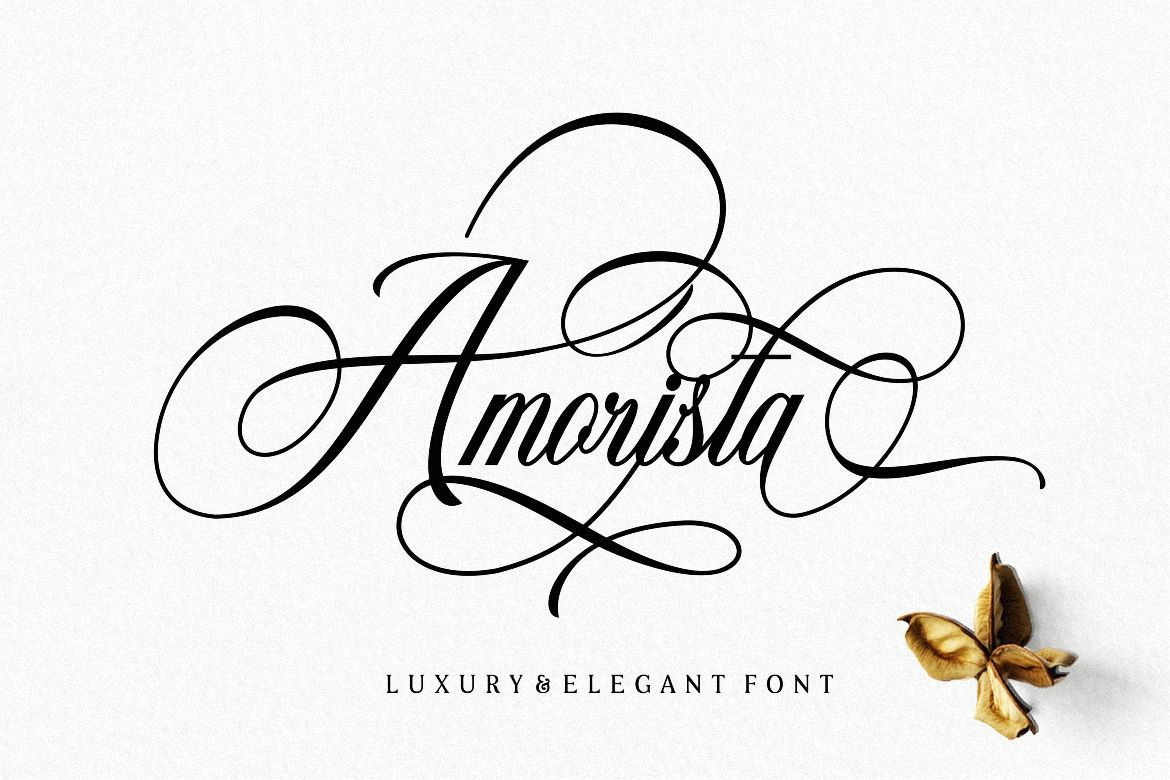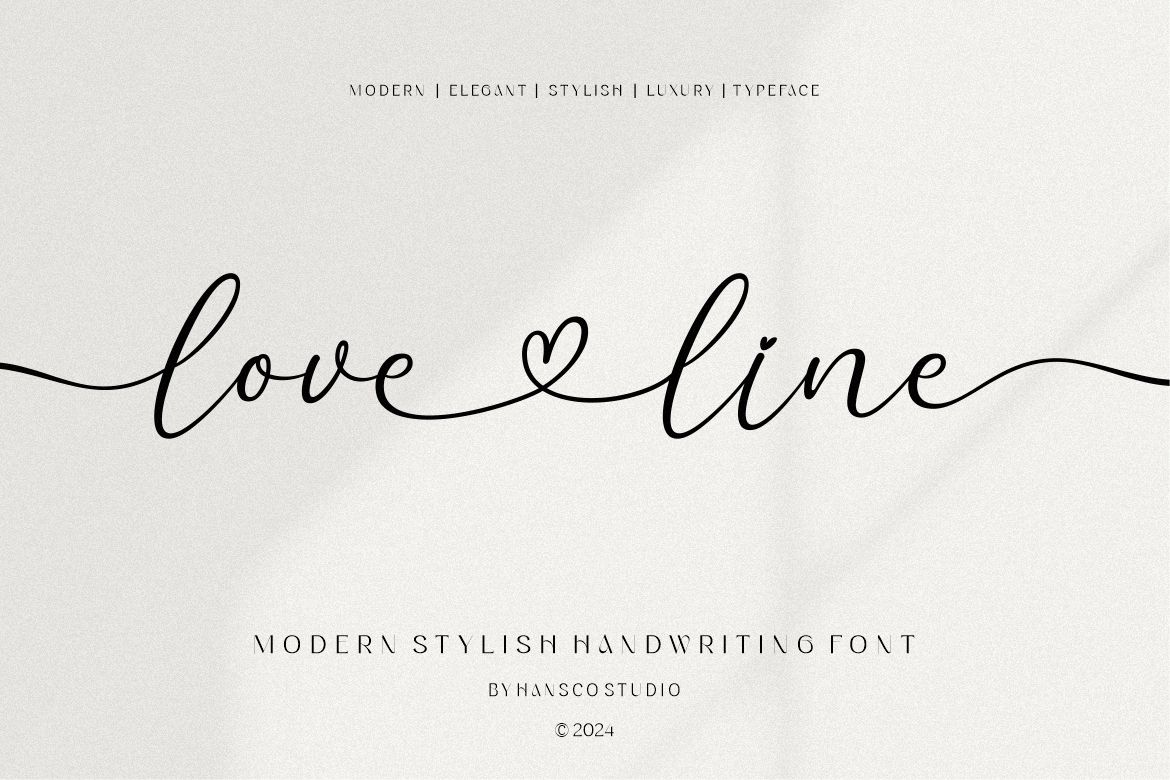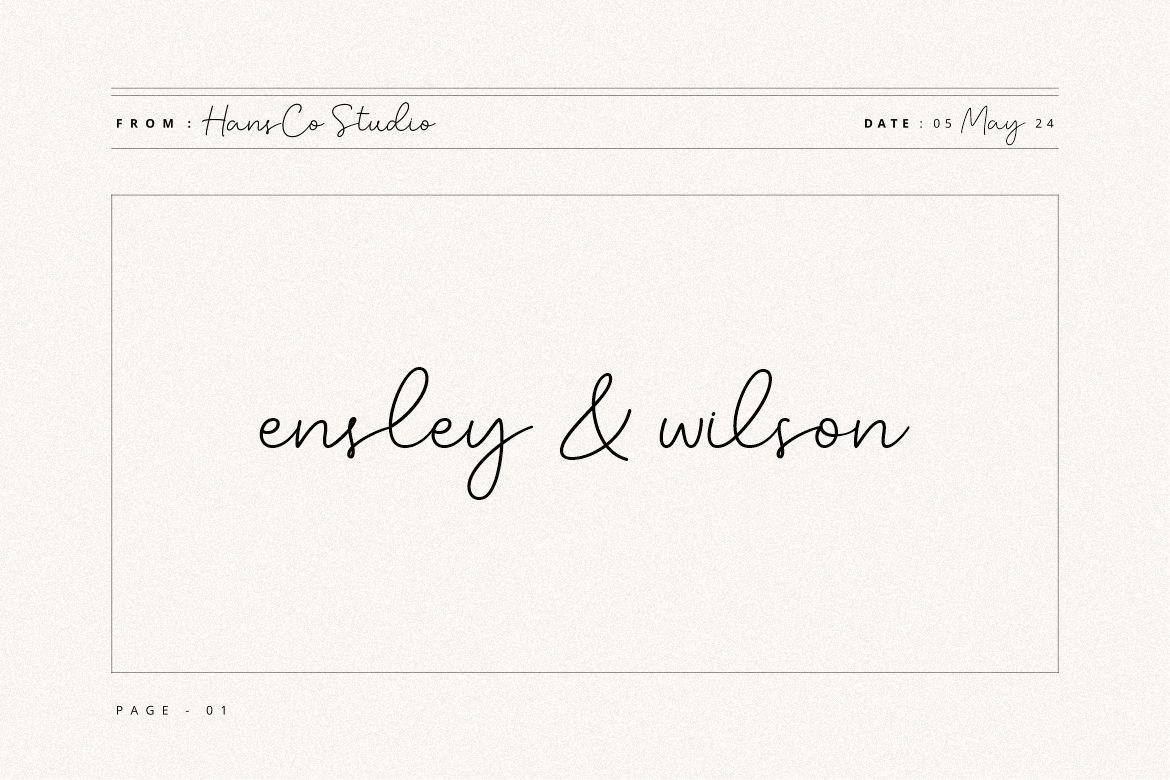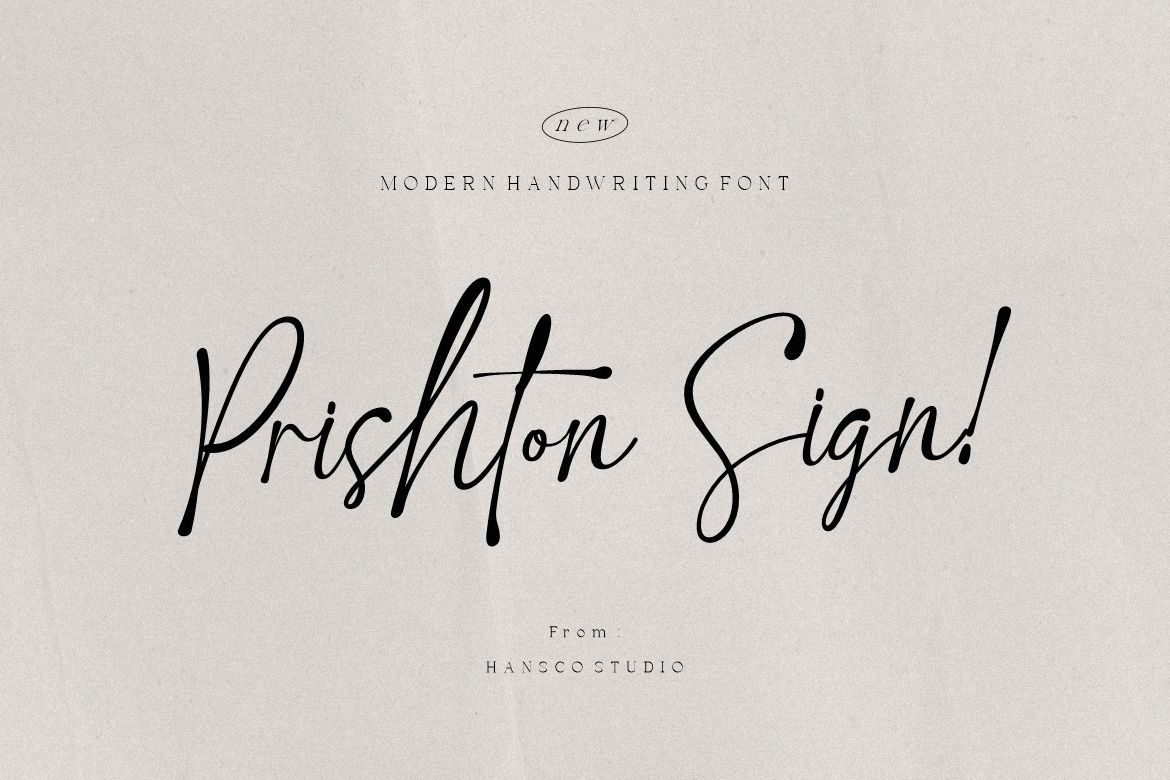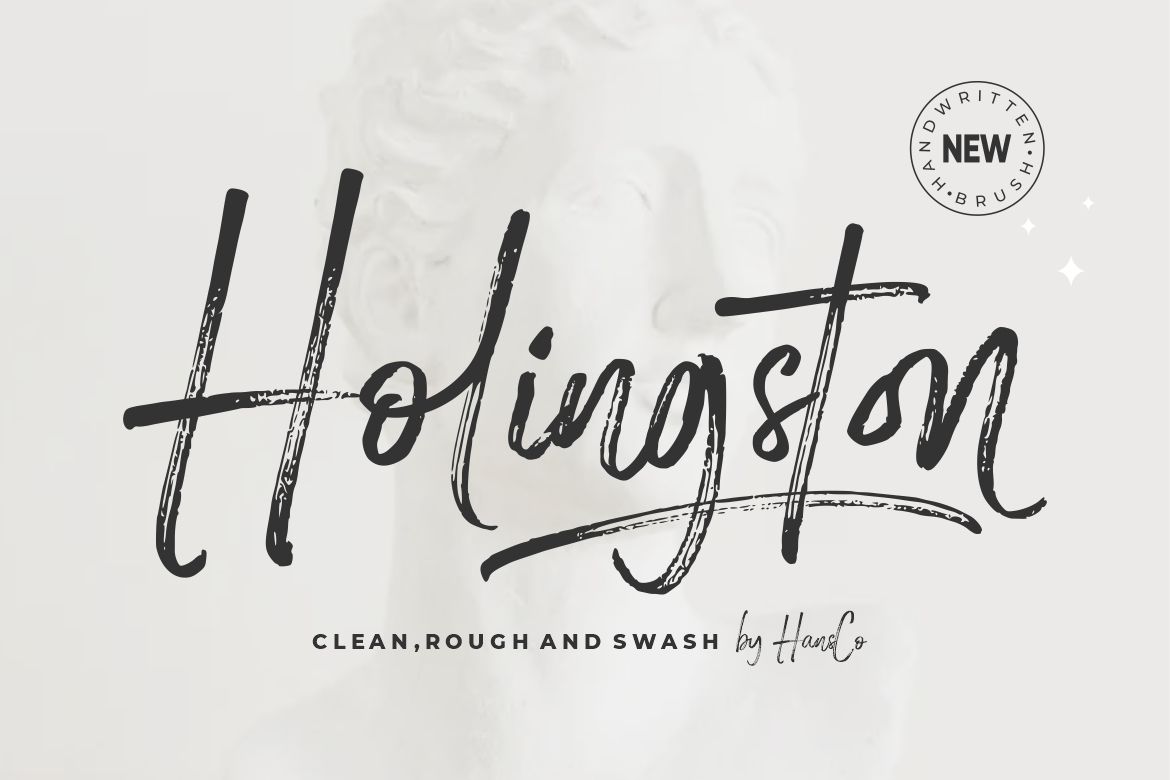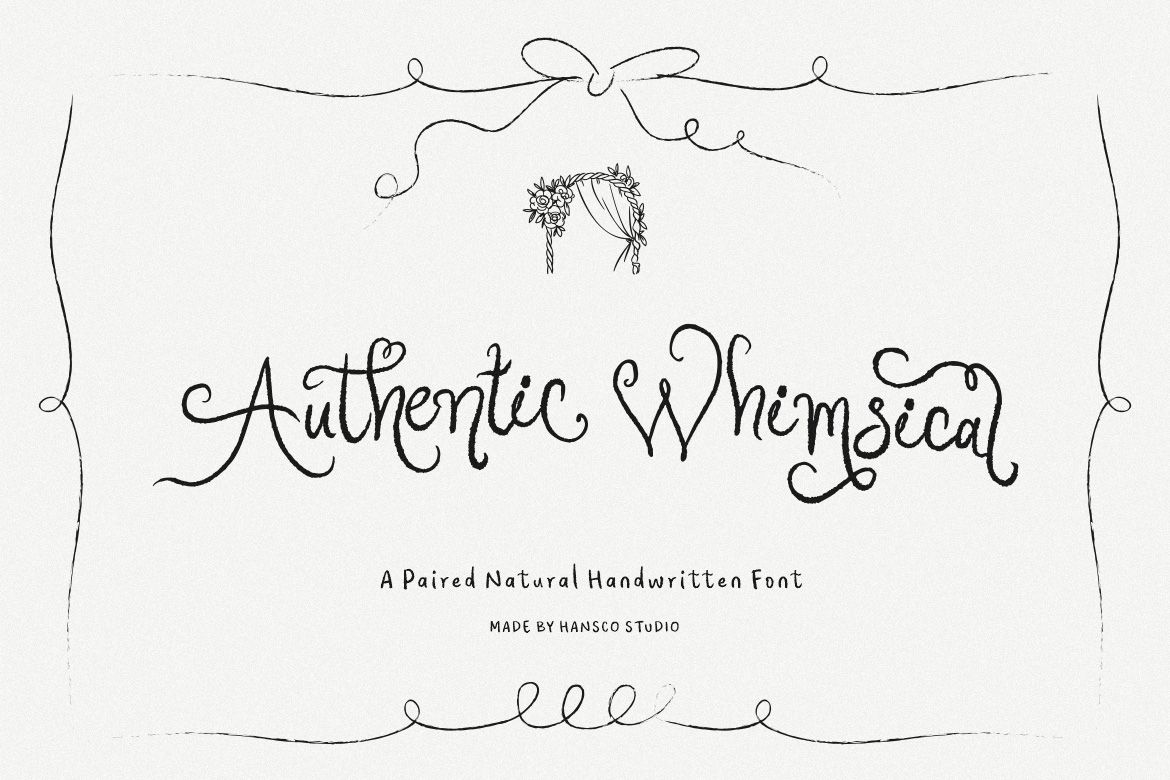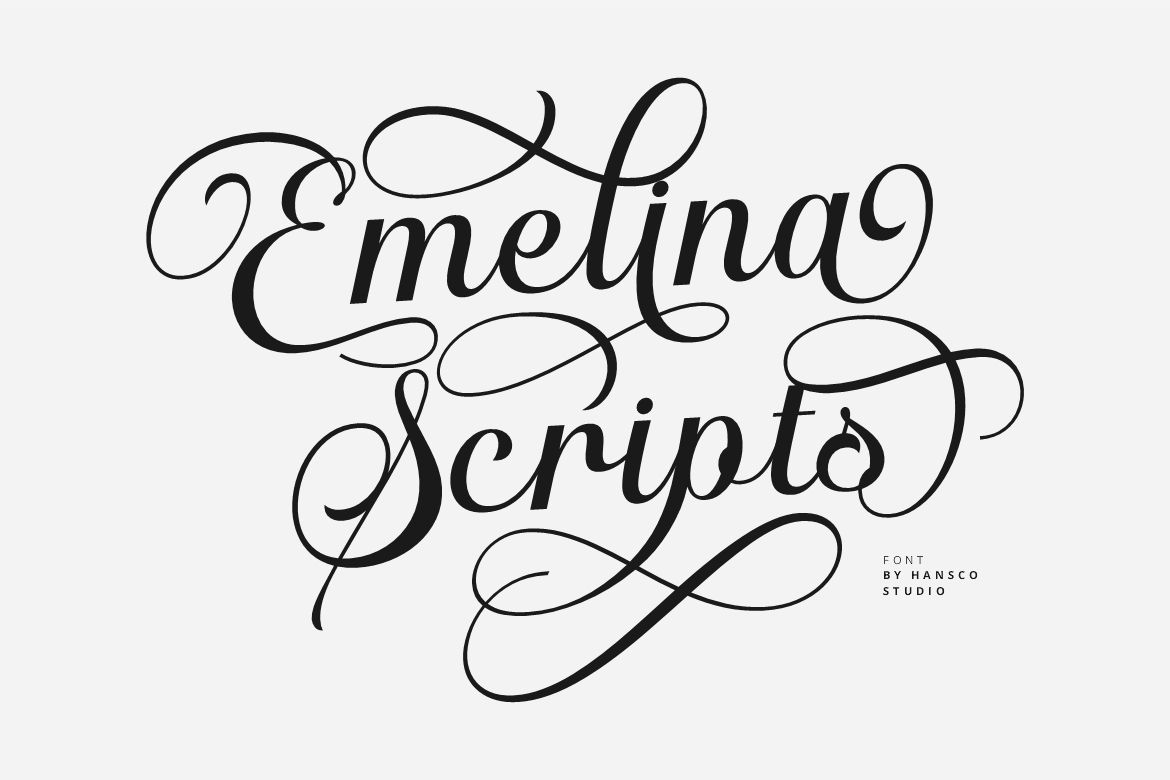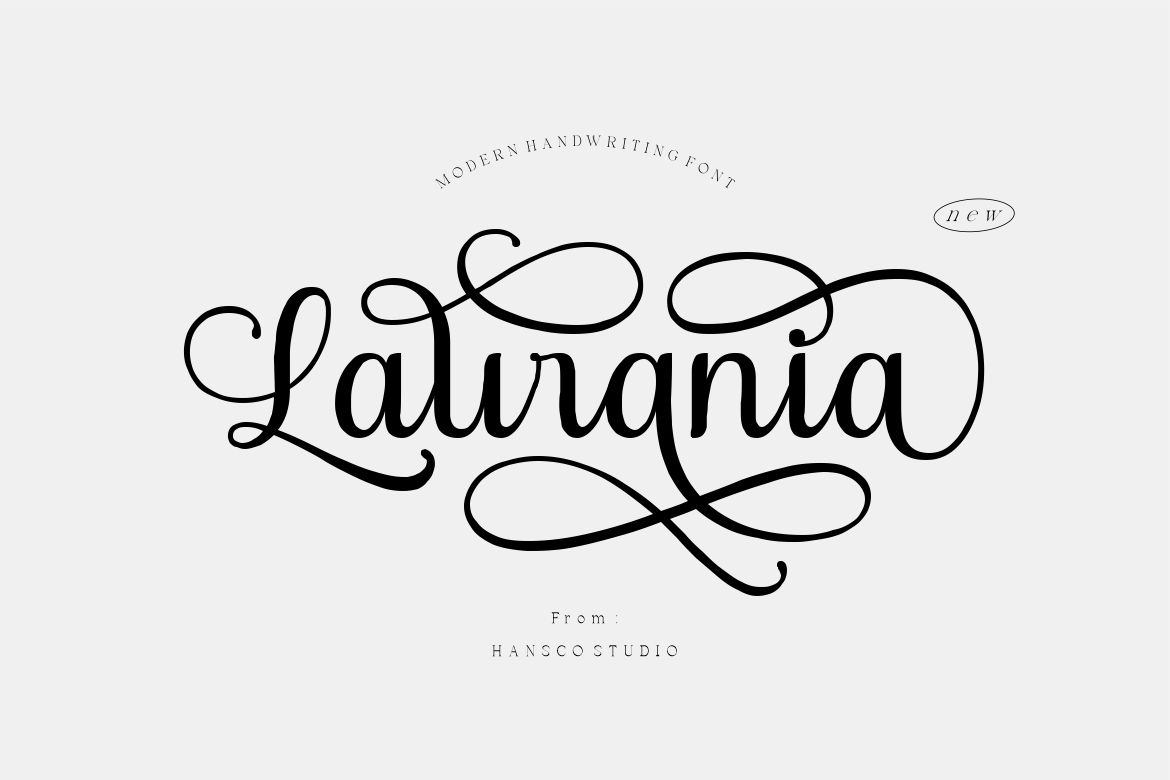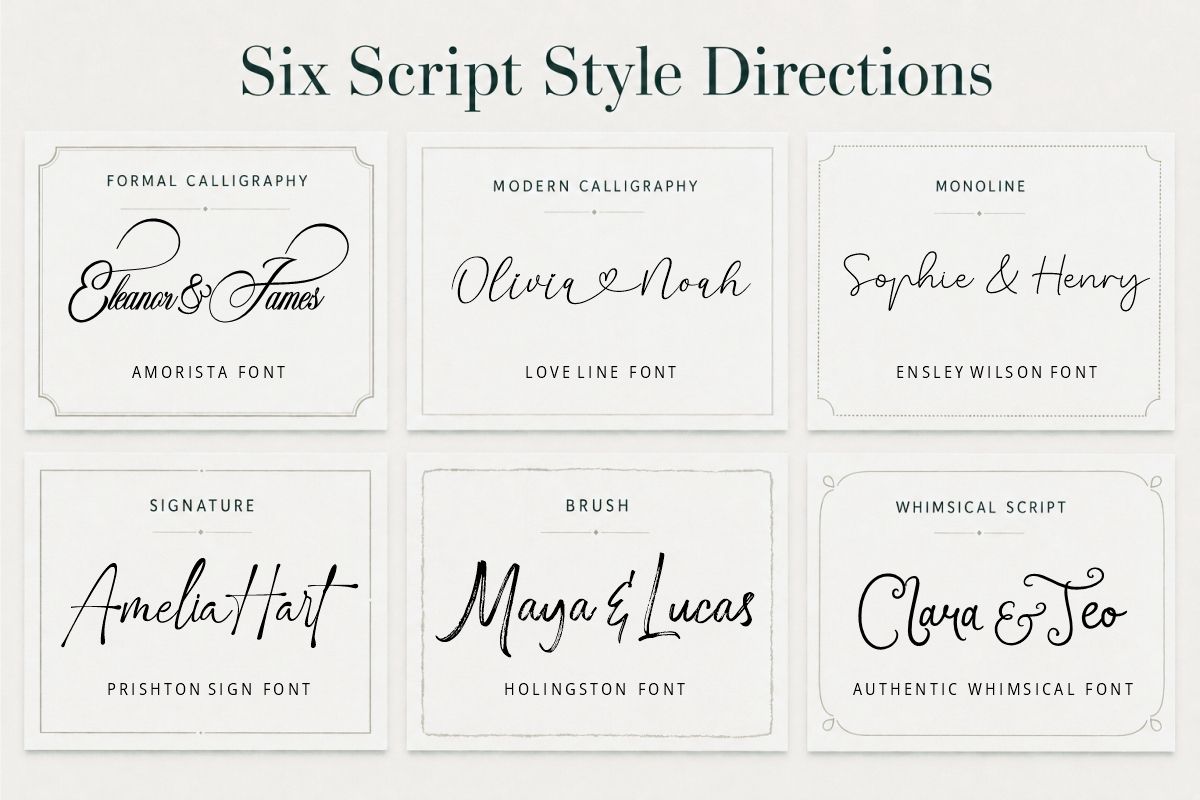
Script Fonts for Invitations: Elegant, Romantic, and Readable Choices
An invitation has two jobs. It should create a feeling, but it also needs to deliver information clearly.
That balance is why choosing script fonts for invitations can be surprisingly tricky. A flowing font may look beautiful in a large preview. Then you place it on a 5 × 7-inch card, add two long names, and reduce the date. Suddenly, the loops overlap. The capitals feel too dramatic. The venue is harder to read than it should be.
I do not think the solution is to avoid script fonts. The solution is to give them the right job.
Use script to create the emotional moment. Let a quieter serif or sans serif handle the practical details. When each font has a clear role, your invitation can feel romantic, personal, and polished without making guests work to understand it.
In this guide, you will learn how to compare script styles, test readability, build a reliable pairing, and check a font before buying it.
What Are the Best Script Fonts for Invitations?
The best script fonts for invitations have recognizable letterforms, controlled flourishes, useful punctuation, and enough weight to survive at the final printed or digital size. Formal calligraphy works well for traditional ceremonies. Modern calligraphy feels softer and more relaxed. Monoline and signature scripts suit clean, contemporary events.
In most cases, use the script for names, a short heading, or one meaningful phrase. Set the date, time, address, RSVP details, and longer message in a readable serif or sans serif.
This is the principle I return to most often:
Script creates the voice. The supporting font delivers the information.
Adobe Express gives similar practical advice in its guide to calligraphy and script fonts: large decorative scripts are best suited to names or short hero text, while simpler fonts should carry the body copy.
What Makes a Script Font Invitation-Friendly?
A script font does not become suitable for an invitation just because it looks romantic. It needs to work with real names, real numbers, and a real production method.
Here are the qualities I would check first.
1. You Can Read Words, Not Just Admire Letters
A beautiful capital is useful, but it does not tell you how the font behaves in a full line.
Type both names together. Look at repeated letters, joins, ascenders, and descenders. Pay special attention to letters that often become ambiguous in decorative scripts, such as uppercase I, J, L, S, and T, or lowercase r, s, and v.
If you need several seconds to decode the names, your guests may have the same problem.
2. The Font Survives at Its Final Size
Thin hairlines can disappear in home printing. Tight joins can fill in on textured paper. Long swashes may collide with nearby text when the design is reduced.
Do not judge the font only while zoomed in on a monitor. Print the invitation at 100% or view the digital version at normal phone size.
3. The Numbers and Punctuation Are Usable
Invitation typography is not only about names. You may need:
• Dates and years
• Start and end times
• Street numbers
• Ampersands
• Apostrophes
• Commas and periods
• Website addresses
• Phone numbers
A font with lovely lowercase letters but weak numerals is still an incomplete choice for many invitation projects.
4. Decorative Features Are Optional, Not Required
Alternates, ligatures, and swashes can make a design feel custom. They should improve a word rather than rescue it.
Start with the regular characters. Add one alternate capital or one finishing swash after the basic composition already works. If every word has a flourish, none of them feels special.
5. It Matches the Event, Not Just the Trend
Typography sets expectations before a guest reads the details. A formal copperplate-inspired script suggests a different event from a loose brush script. Neither is automatically better.
Ask what the occasion should feel like: ceremonial, intimate, playful, editorial, rustic, or modern. Then choose the script category that supports that mood.
Six Script Font Styles and Where They Work Best
The easiest way to narrow your options is to choose a direction before choosing a specific typeface.
Script styleOverall feelingBest invitation usesMain readability risk
Formal calligraphyTraditional, ceremonial, refinedBlack-tie weddings, anniversaries, formal dinnersVery thin hairlines and elaborate capitals
Modern calligraphyRomantic, relaxed, personalGarden weddings, bridal showers, engagement partiesIrregular baselines becoming too busy
Monoline scriptClean, warm, contemporaryMinimal weddings, baby showers, small gatheringsSimilar-looking letters in long words